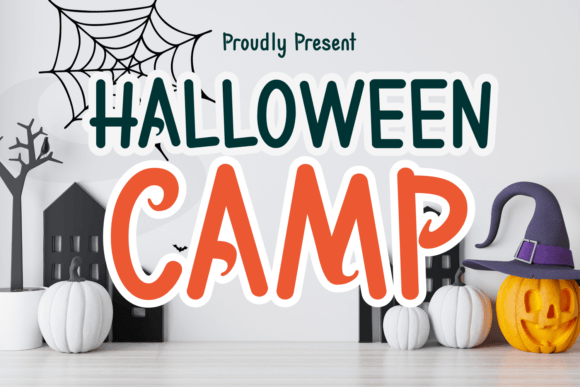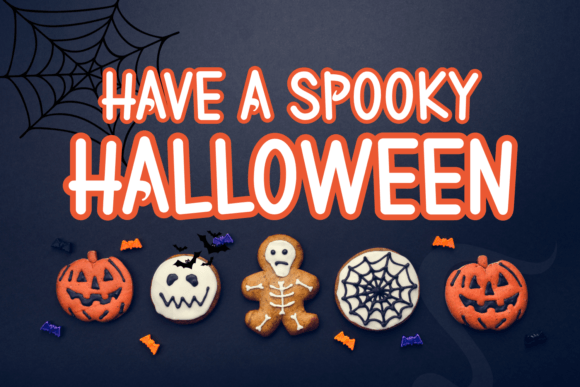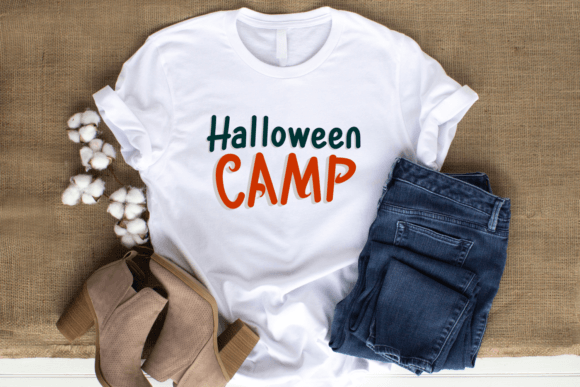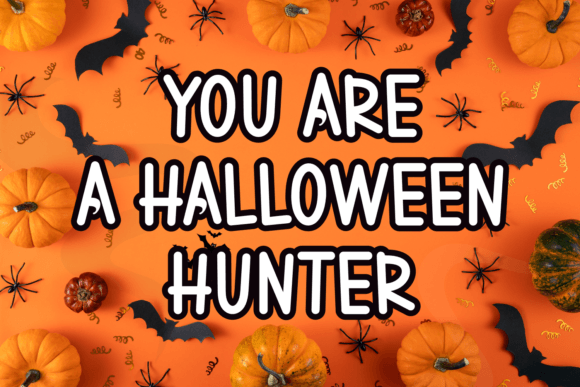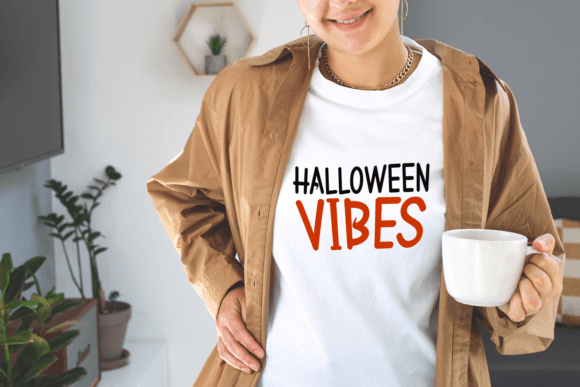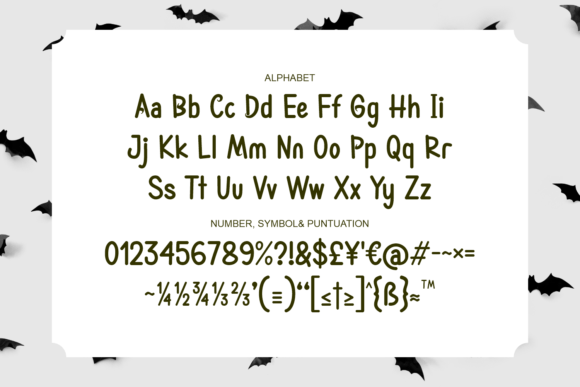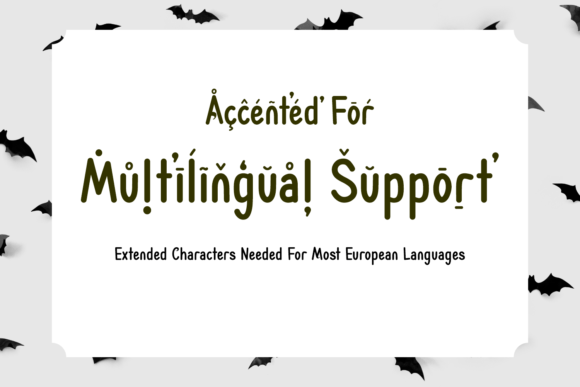
Spooky Season Vibes: Get Ready to Cast a Spell with Halloween Camp Font
As the leaves start to fall and the nights grow darker, our minds begin to wander to the one time of year where creativity knows no bounds – Halloween. It’s the perfect excuse to unleash your inner artist and let your imagination run wild. Whether you’re designing a spooky-themed website, crafting the perfect invitation, or creating a hauntingly beautiful flyer, the right font can make all the difference.
Enter Halloween Camp Font – a cool and simple typeface that embodies the essence of the spookiest season. With clean lines and a touch of Halloween charm, this font is perfect for adding a stylish yet playful vibe to your Halloween-themed projects. For designers, Halloween Camp Font is a valuable tool that can help take your designs to the next level.
- Unique Characteristics: The font features a spooky and campy aesthetic, with intricate details and bold lines that evoke a sense of nostalgia and playfulness.
- Font Style: Halloween Camp Font is a display font, designed to be used for titles, headings, and other attention-grabbing text elements, rather than body text.
Halloween Camp Font Review
I recently had the chance to work with the “Halloween Camp Font” and I must say it’s a font that’s sure to get you in the mood for spooky season. ✨ Here are a few things that I think work well with this font:
- Unique and playful design: The font has a fun, campy vibe that’s perfect for Halloween-themed designs.
- Good for bold text: The font’s bold weight is great for creating attention-grabbing headlines or titles.
- Works well for digital and print designs: I was able to use the font successfully in both digital and print designs, which is a plus.
- Limited character set: The font’s character set is relatively small, which may make it difficult to use for longer blocks of text.
- Not ideal for body text: While the font is great for headlines and titles, it may not be the best choice for body text due to its playful, attention-grabbing nature.
Overall, I think the “Halloween Camp Font” is a fun and unique addition to any designer’s toolkit. It’s perfect for creating spooky and playful designs, but may not be the best choice for more serious or straightforward designs.
The Halloween Camp Font is ideal for creating spooky and playful designs for Halloween-themed projects, such as invitations, posters, and social media graphics.